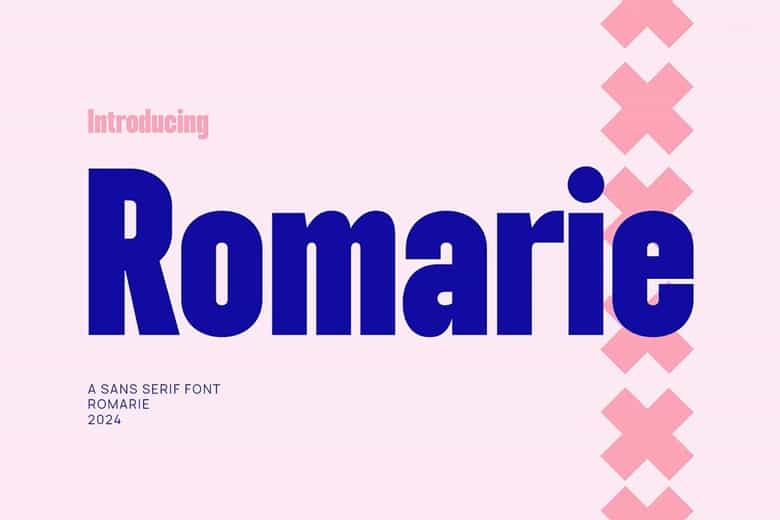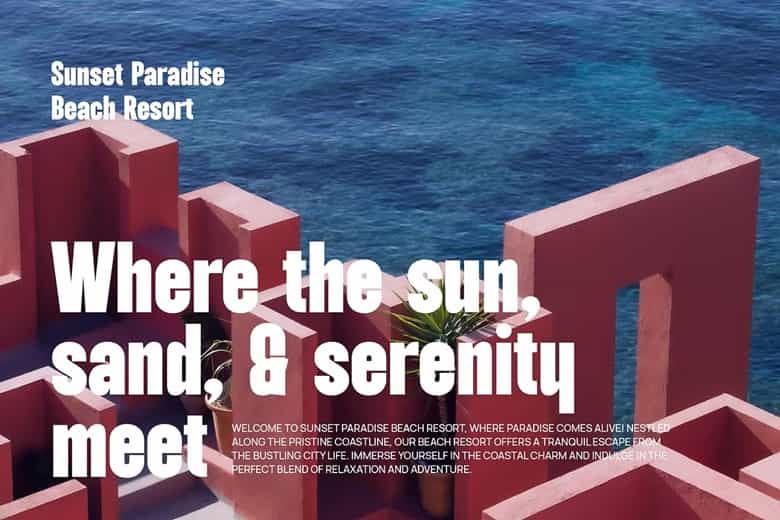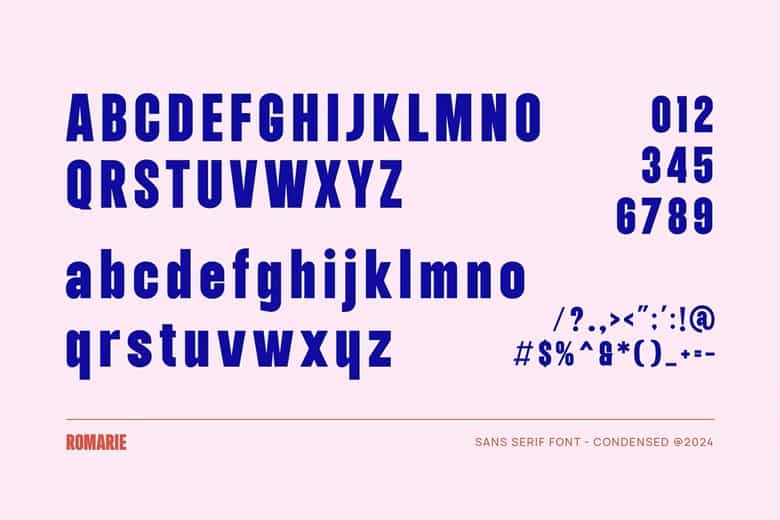
Romarie is a contemporary, tidy sans serif typeface which is made to be clear and multipurpose. The font is ideal in branding editing and web designing due to its clear design and aesthetic shapes. This font has a clean and streamlined style providing a new professional look to your work.